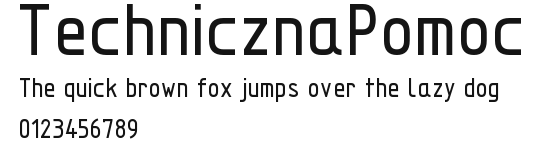
• Font Name: TechnicznaPomoc
• Full Font Name: TechnicznaPomoc
• Designer: bartek nowak
• Manufacturer: fontoholic
About TechnicznaPomoc.ttf
TechnicznaPomoc.ttf is a modern, elegant sans-serif font designed for ultimate readability and visual harmony. Perfect for branding, headlines, web design, and print materials.